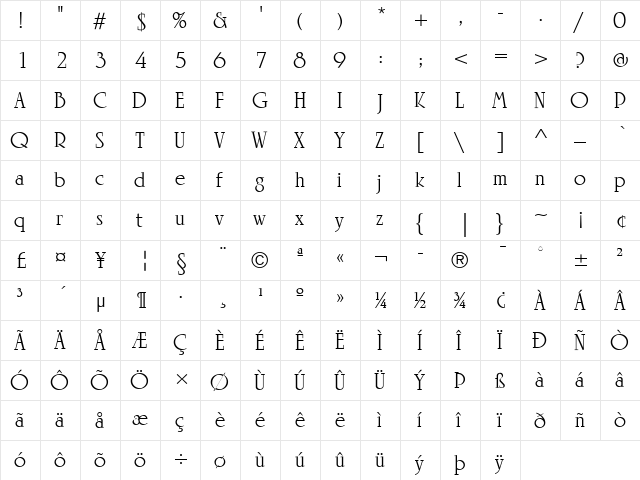
LTRowena Regular Regular
Design Context for LTRowena Regular Typeface
LTRowena Regular is a composed and adaptable typeface that performs quietly and consistently across a wide range of design contexts.